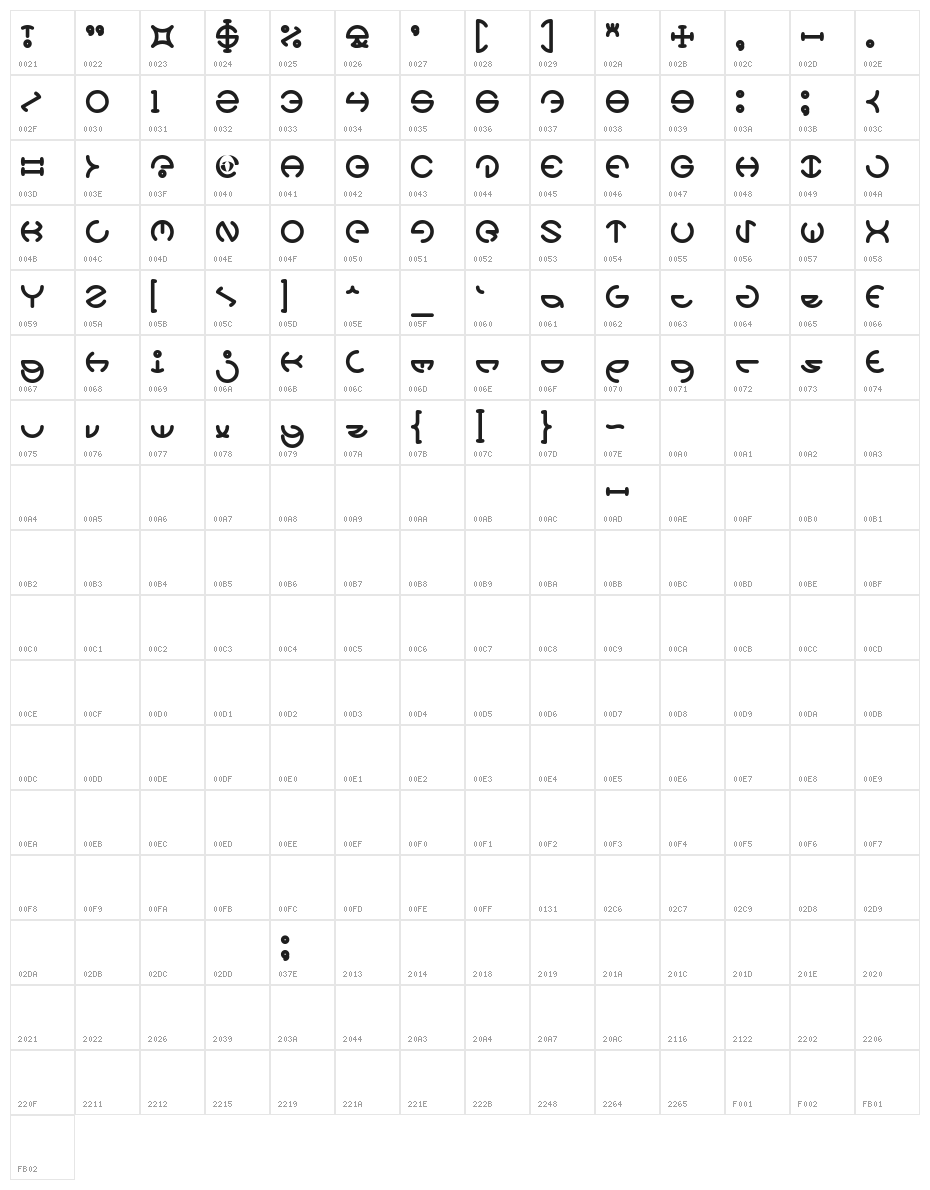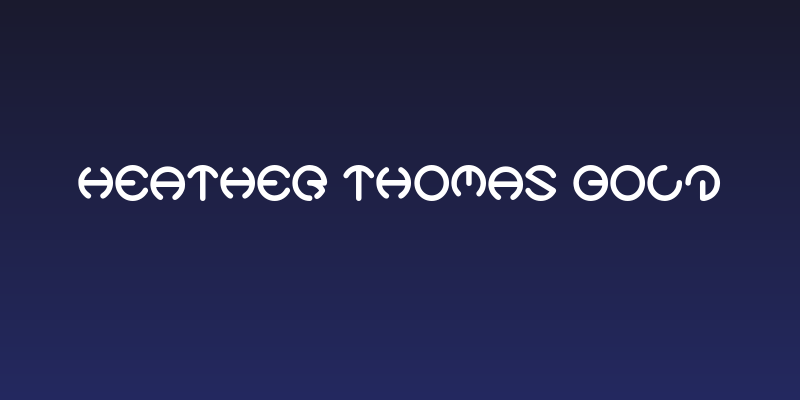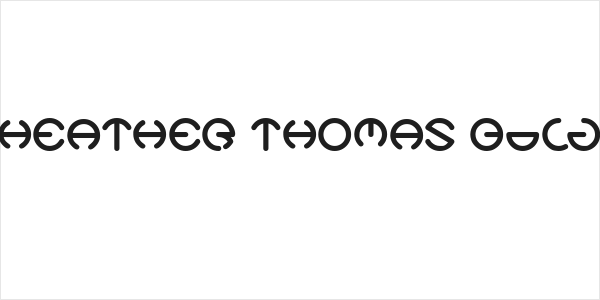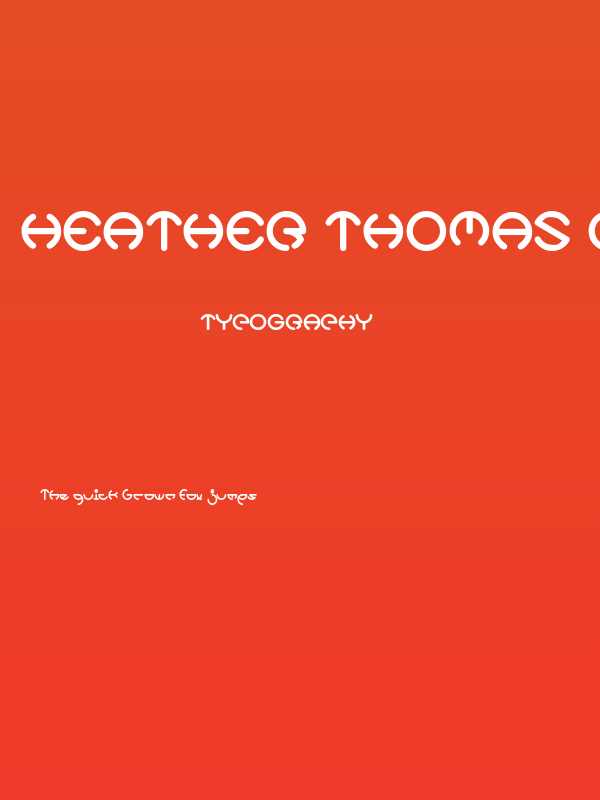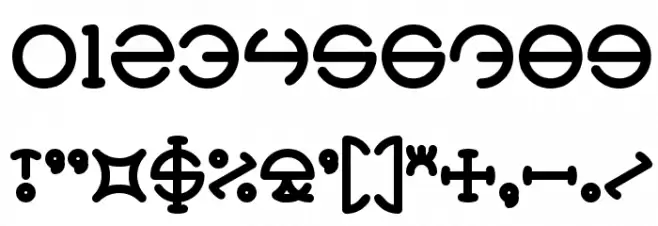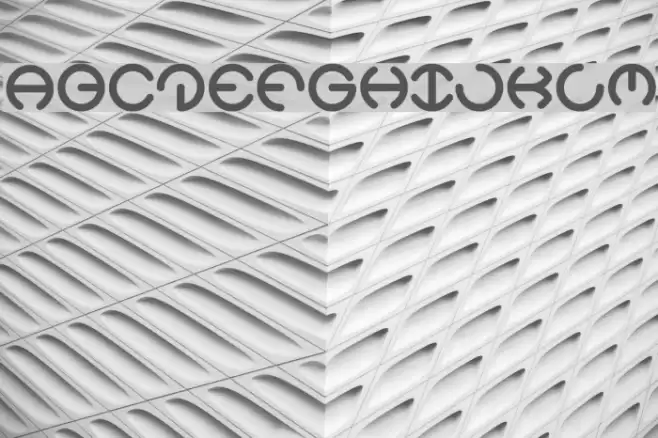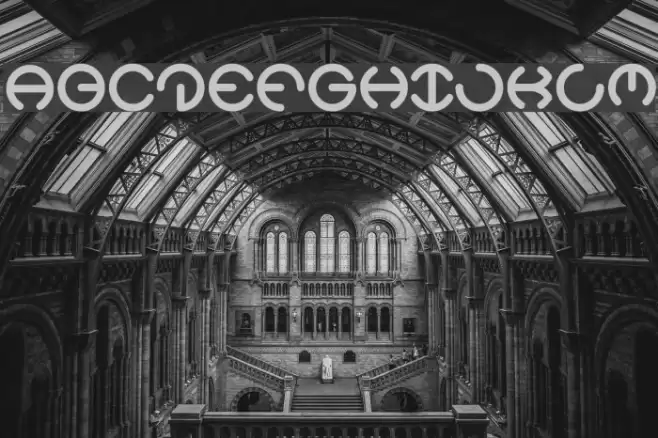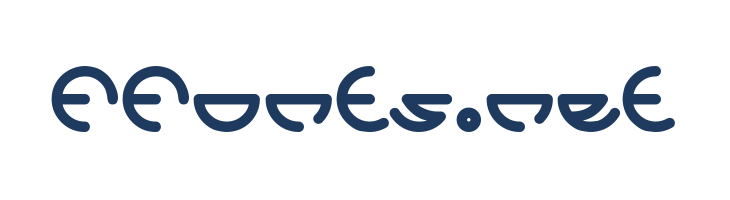
HEATHER THOMAS Bold Font
This font features a unique and decorative style with bold, rounded characters that incorporate circular and semi-circular elements. The design is consistent across both uppercase and lowercase letters, as well as numbers and special characters. The strokes are thick and uniform, giving the font a strong presence. The characters are interconnected with smooth curves, creating a cohesive and flowing appearance. This font stands out with its artistic flair, making it suitable for creative and eye-catching designs.
| Proposed Projects | Ideal for logos, posters, and creative branding projects where a distinctive and artistic look is desired. |